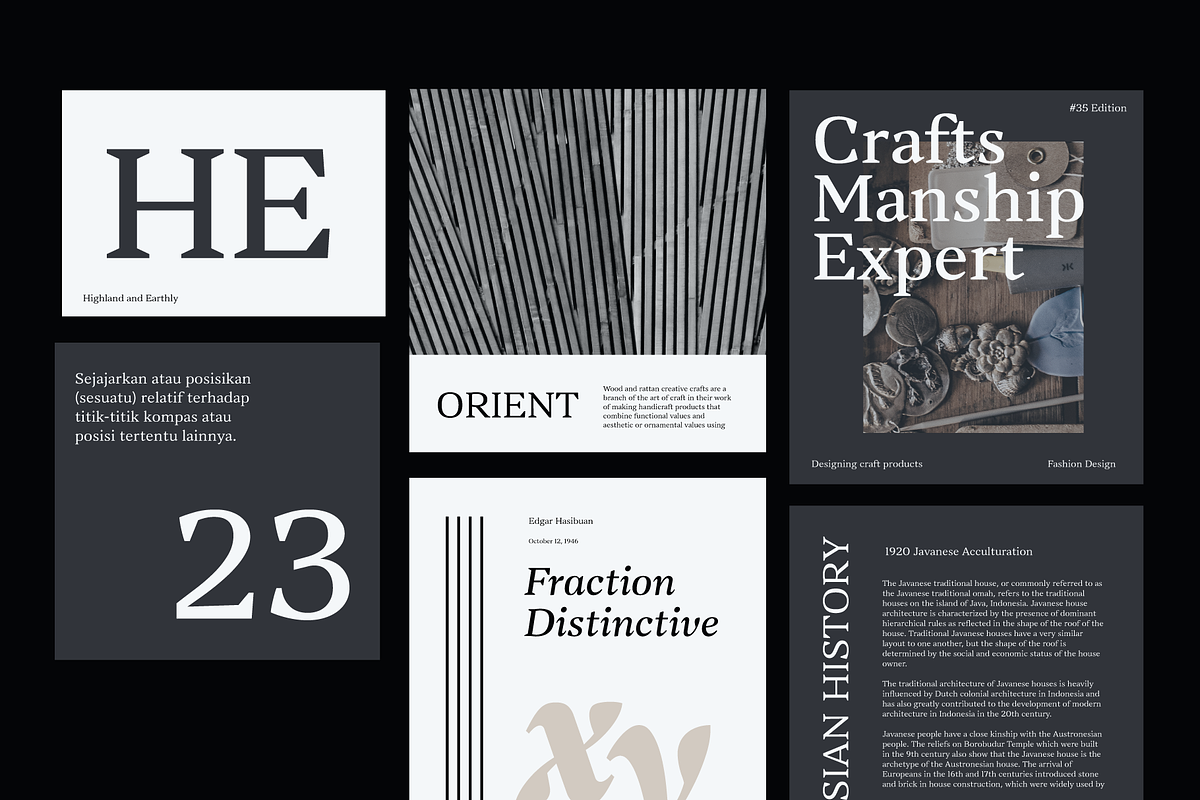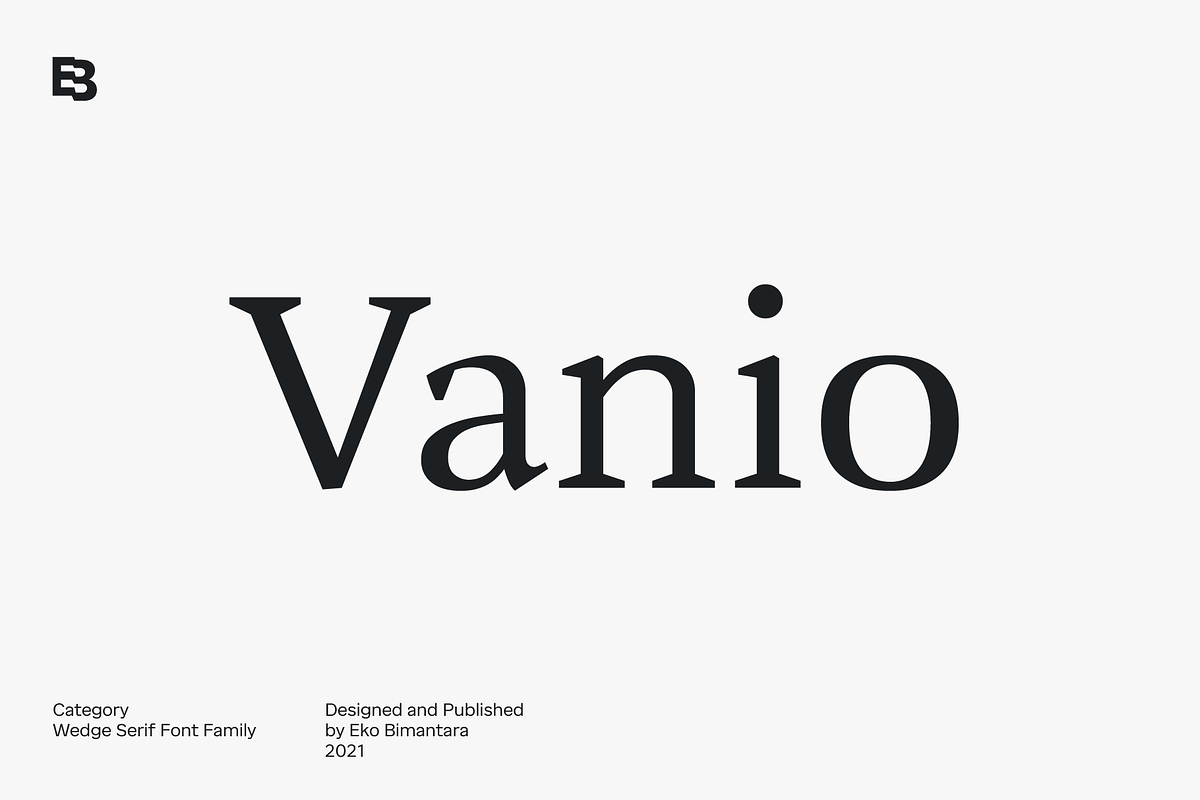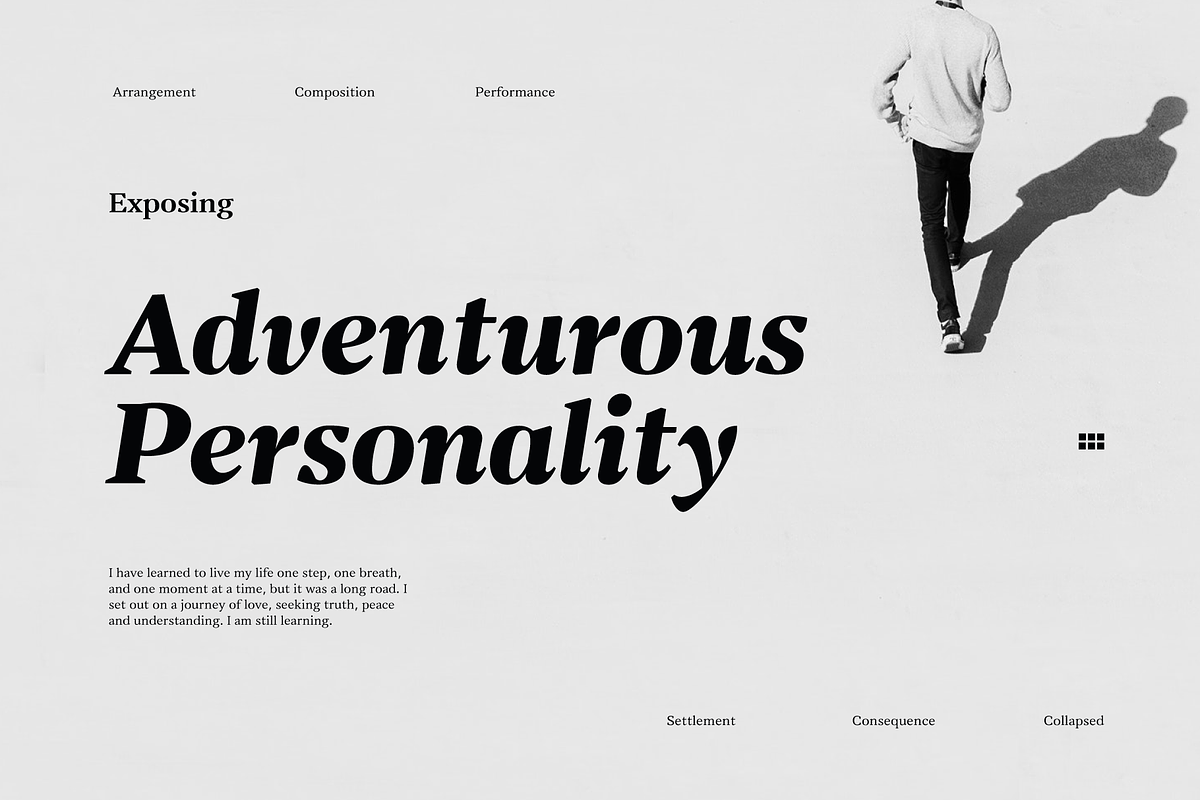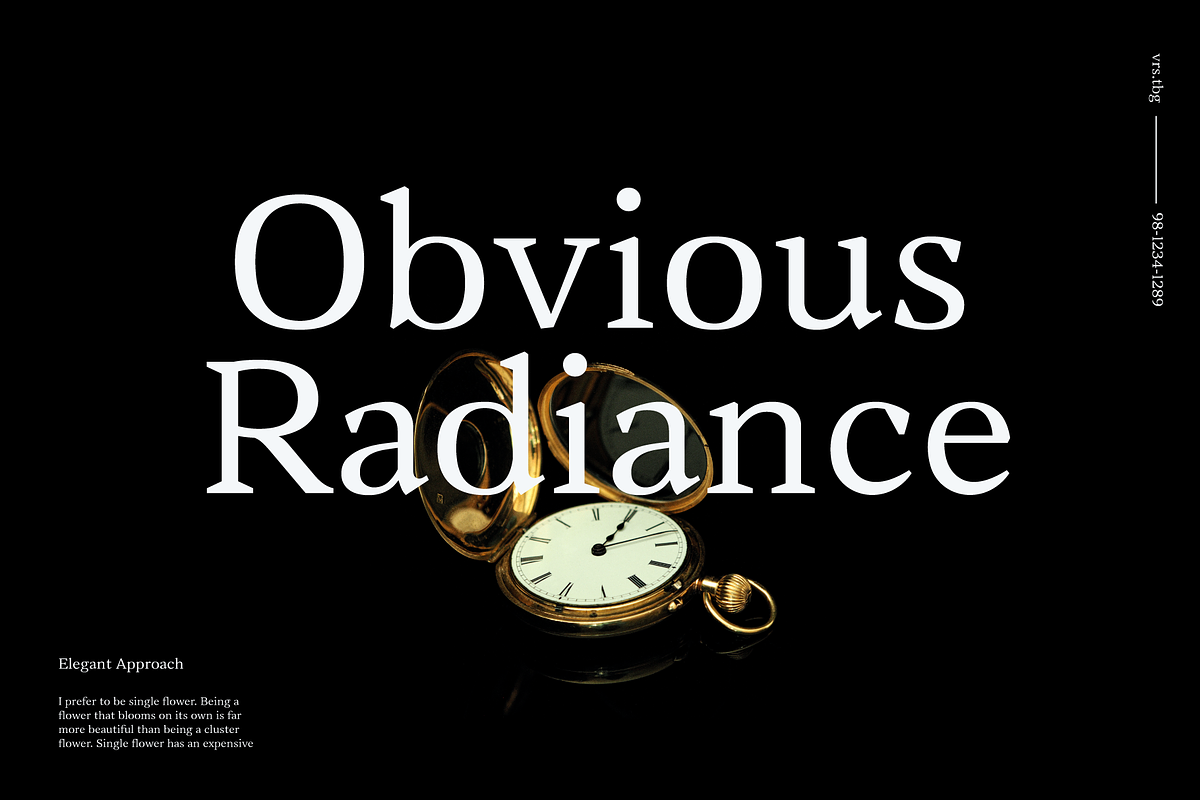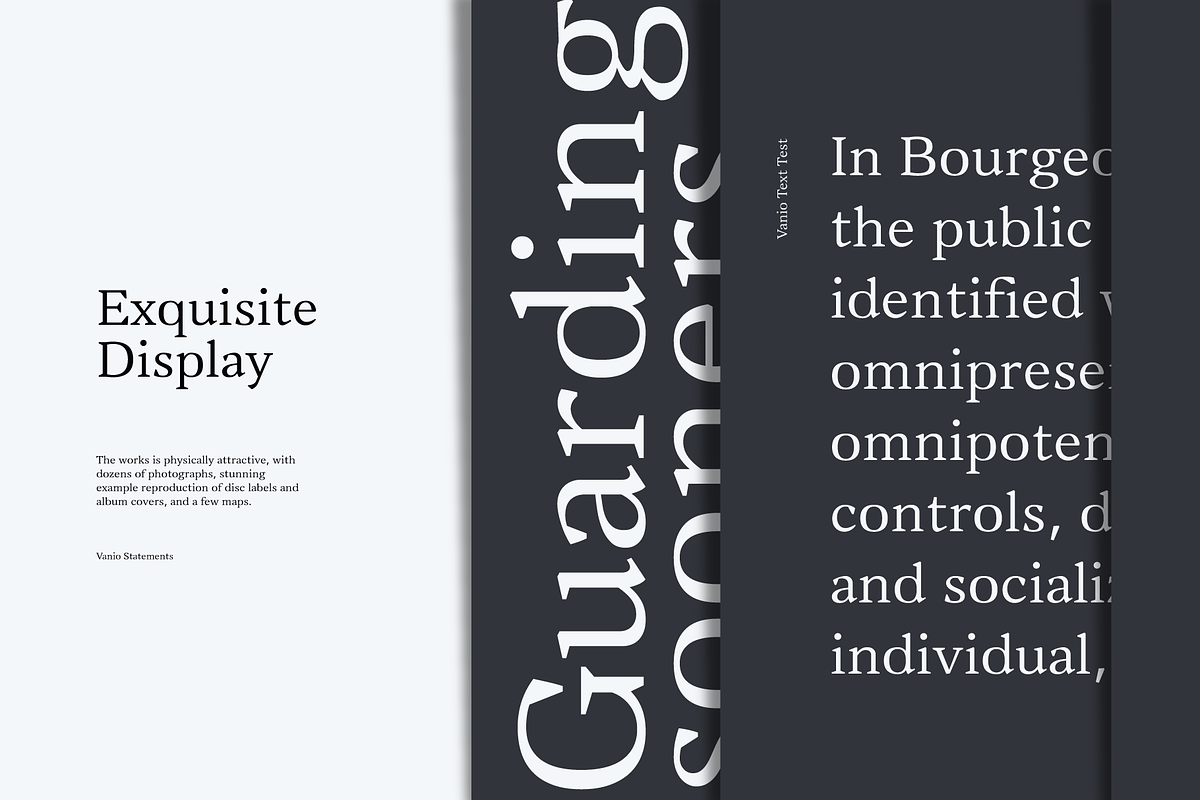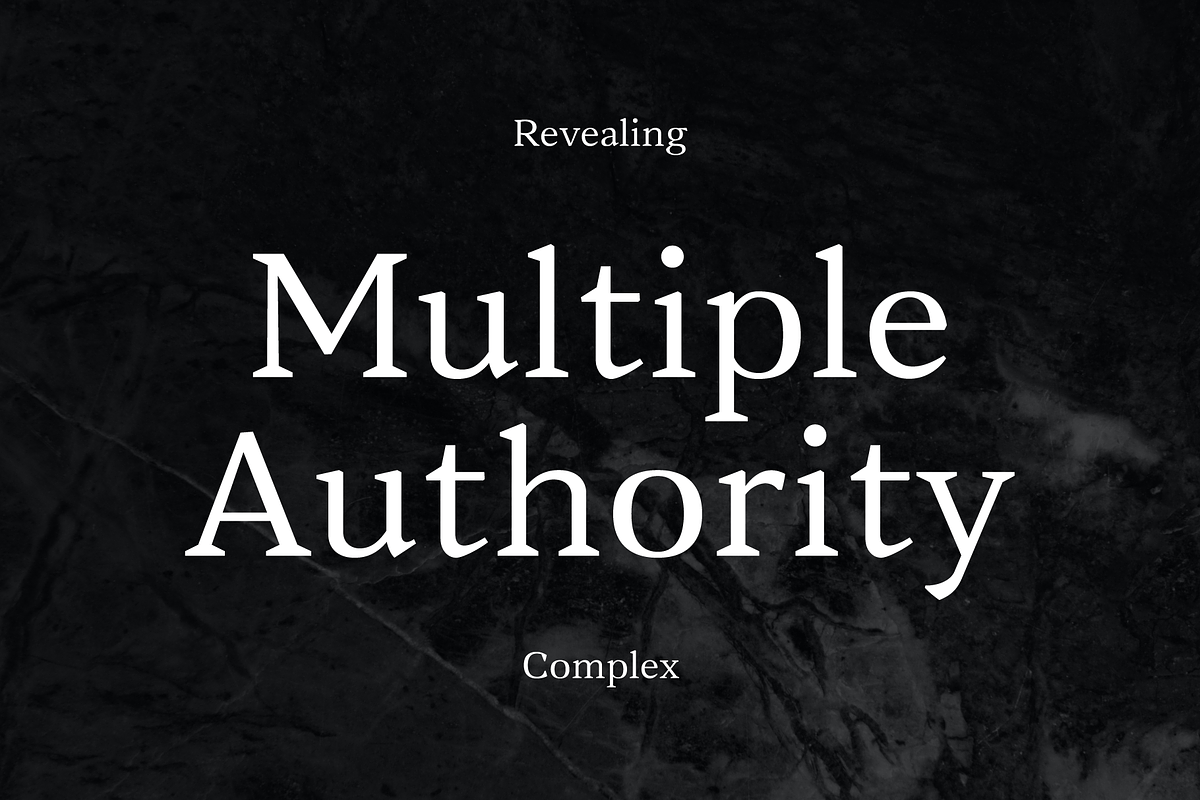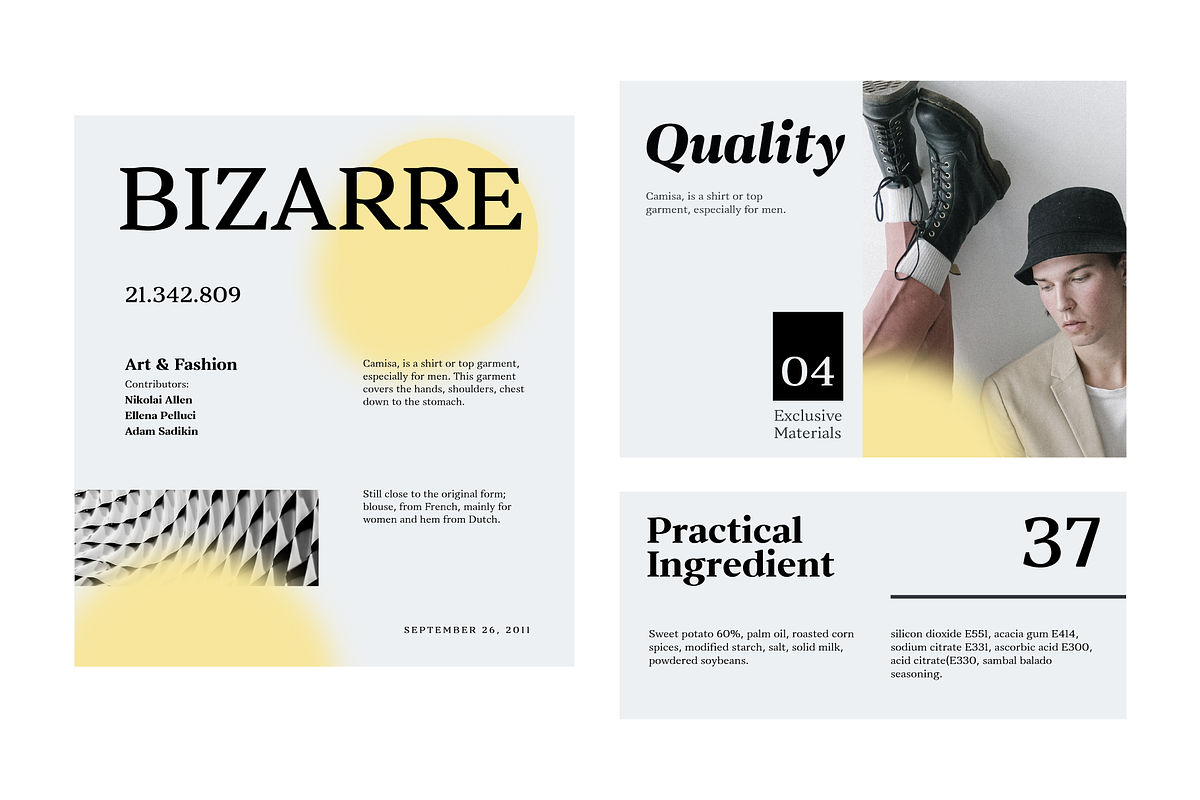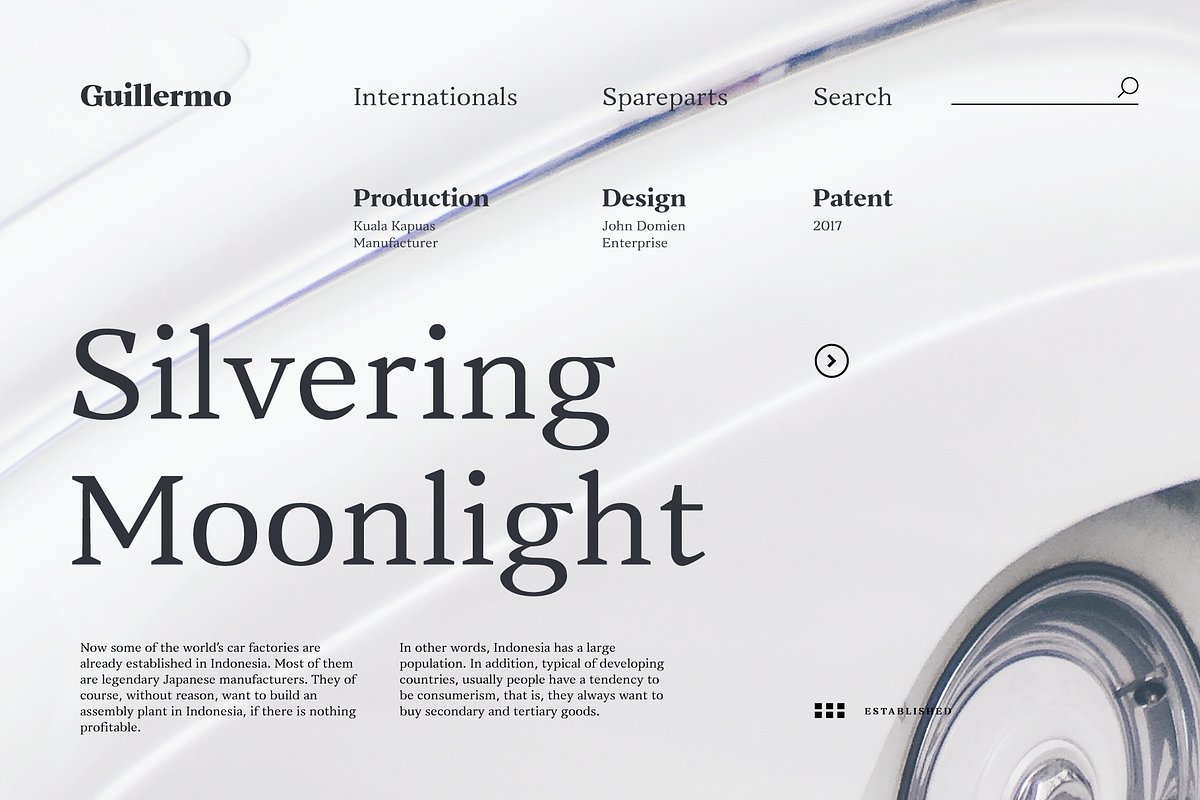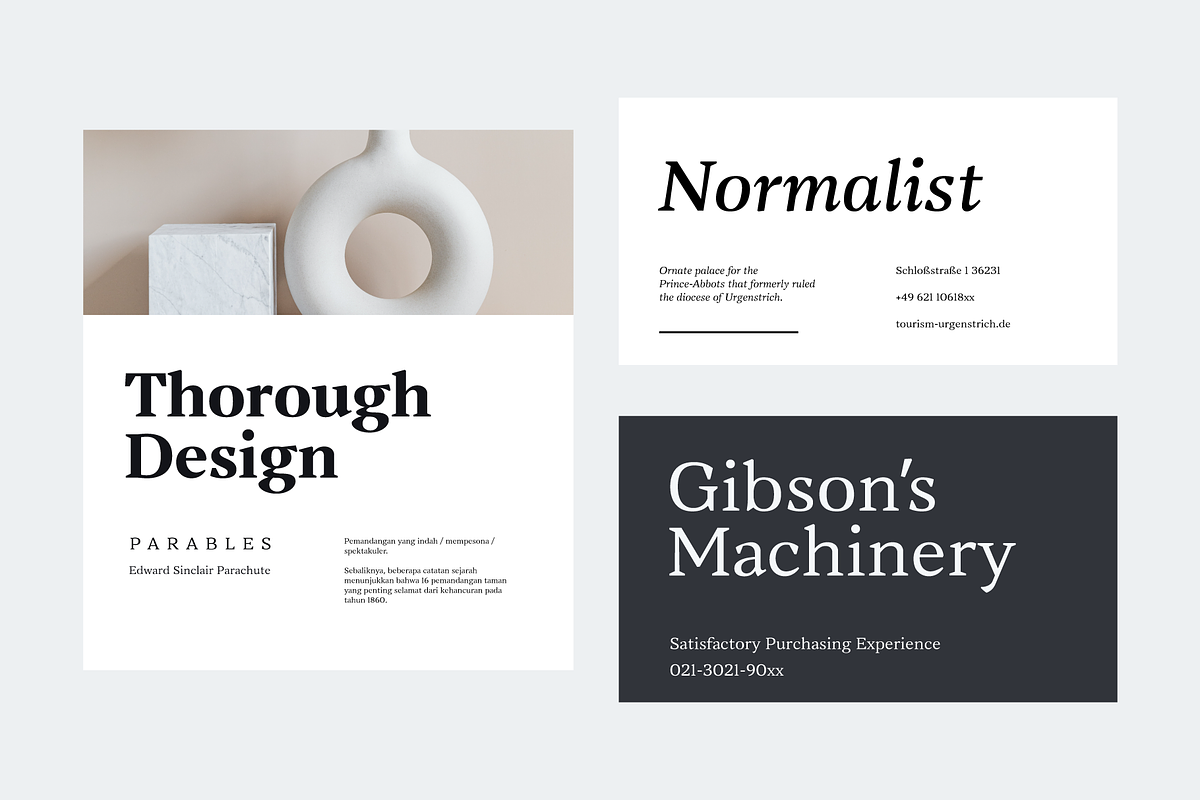
Vanio; 10 Fonts Wedge Serif Family
Vanio is a wedge serif font family that crafted with precision focused on both artistically and legibility. The letterforms and other typographic elements are made in a way to achieve optical recognition and fit for various typesetting. Its have a strong serif and spacious width letterforms on the upright styles. Its shown a medium contrast and caligraphic strokes. Its have a moderate vertical heights either at the x-height, caps, ascender or descender. Vanio consist of 10 styles from regular to extrabold with each matching italics. Its contain more than 460 glyphs which support broad latin languages. Also contain several opentype features; Ligature, oldstyle figures, fraction, and other variation of figures.